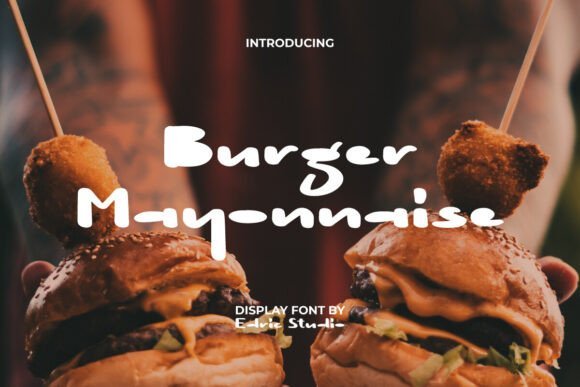
Get Ready to Drip with Style: Introducing the Burger Mayonnaise Font
Have you ever stared at a blank design canvas, searching for that perfect font to bring your creative vision to life? The perfect moment often comes when you stumble upon a font that speaks to you, and for designers, that moment is about to arrive with the Burger Mayonnaise Font.
This unique and quirky font is inspired by the creamy goodness of mayonnaise, and its charm lies in its ability to close letters with holes, making it a delightful addition to any project. With its full set of characters, numbers, punctuation, and symbols, the Burger Mayonnaise Font is ready to complement your brand image, custom design, or any other creative endeavor.
Burger Mayonnaise Font Key Features
- Font Family: Burger Mayonnaise is a unique, handwritten font designed to evoke a casual, yet elegant feel.
Burger Mayonnaise Font Review
I recently had the chance to work with the Burger Mayonnaise Font, and I must say, it’s a unique addition to any design project. ✨ The font’s playful and casual vibe makes it perfect for branding and marketing materials that aim to convey a laid-back atmosphere.
One of the things I love about Burger Mayonnaise Font is its versatility. ✨ It’s great for use in logotypes, headings, and even body text. The font’s bold and chunky design makes it perfect for catching attention and creating a memorable brand image.
- ⚠️ The font may not be suitable for formal or professional projects, as it can come across as too casual or immature.
- ⚠️ Some users may find the font’s bold design overwhelming or difficult to read, especially in smaller sizes.
- ⚠️ The font’s playful nature may not translate well to certain industries or brands that require a more serious or sophisticated image.
Overall, I think the Burger Mayonnaise Font is a great addition to any designer’s toolkit. While it may have some limitations, it’s a fun and creative option that can add a unique touch to your designs. With the right project and application, this font can really shine and help you stand out from the crowd.
The Burger Mayonnaise Font is ideal for:
- Casual branding and advertising
- Food and beverage packaging design
- Playful and whimsical graphic design
Bebas Neue is a sans-serif font with a modern and clean design. It is suitable for use in headings and titles, especially in applications where a bold and contemporary look is desired. Bebas Neue is more versatile and can be used in various contexts, whereas Burger Mayonnaise Font is more playful and casual.
Comparison: Bebas Neue is more professional and elegant compared to Burger Mayonnaise Font, which has a more laid-back feel.
Great Vibes is a script font with a friendly and approachable tone. It is suitable for use in creative projects, such as invitations, posters, and social media graphics. Great Vibes is more elegant and refined compared to Burger Mayonnaise Font, which has a more playful and casual feel.
Comparison: Great Vibes is more suitable for creative and artistic projects, whereas Burger Mayonnaise Font is more suitable for casual and everyday use.
Playfair Display is a luxurious and elegant serif font. It is suitable for use in high-end projects, such as luxury branding, fine art, and fashion. Playfair Display is more sophisticated and refined compared to Burger Mayonnaise Font, which has a more playful and casual feel.